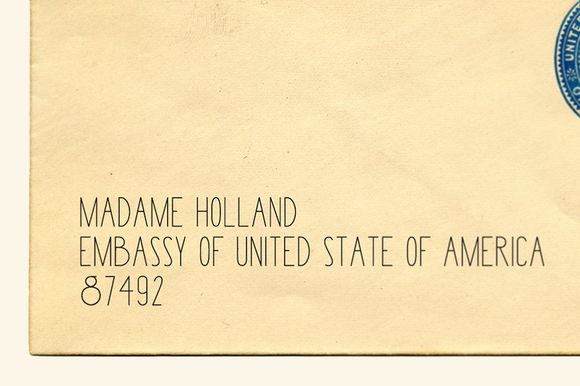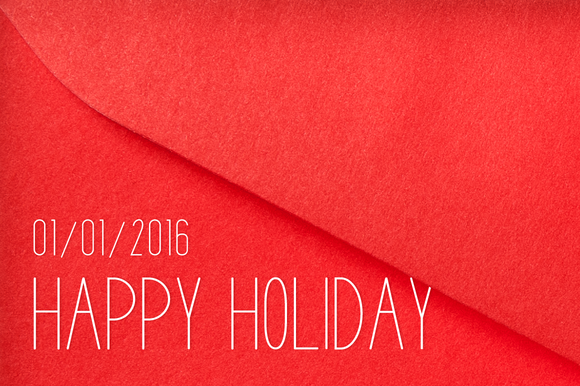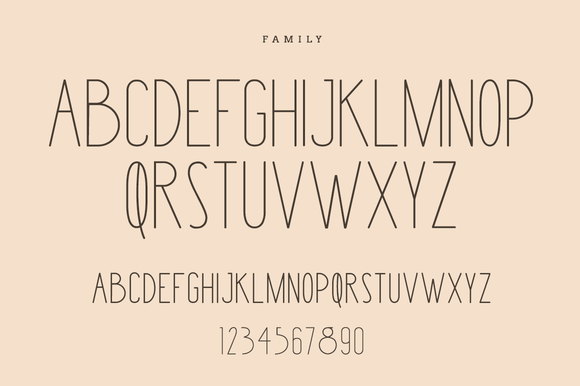
Introduction to Merry Light Font Font
Fonts play a crucial role in design, and the Merry Light Font font is a typeface that brings both character and versatility to any project. Whether you’re working on a branding project, a website, or a print design, the Merry Light Font font offers a unique style that can elevate your work.
Merry Light is a clean and very lightweight font which brings lots of elegance to your design.
Key Features of Merry Light Font Font
Why Choose Merry Light Font Font?
The Merry Light Font font is more than just a typeface – it’s a design tool that helps you communicate your message with style and clarity. Its unique character set and versatile design make it suitable for a wide range of applications, from elegant invitations to bold headlines.
With its carefully crafted letterforms and balanced proportions, the Merry Light Font font ensures readability and visual appeal across all mediums.
What makes Merry Light Font font special?
The Merry Light Font font stands out with its unique design, exceptional readability, and versatility across various design applications.